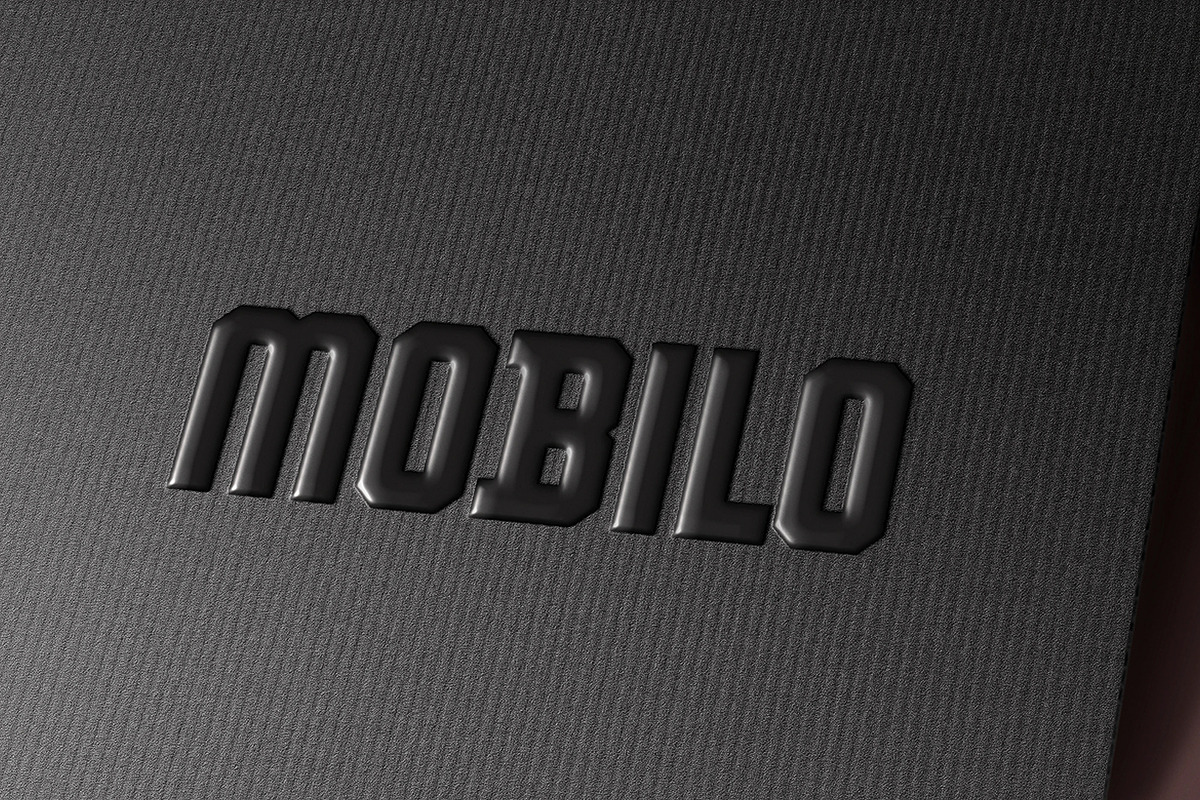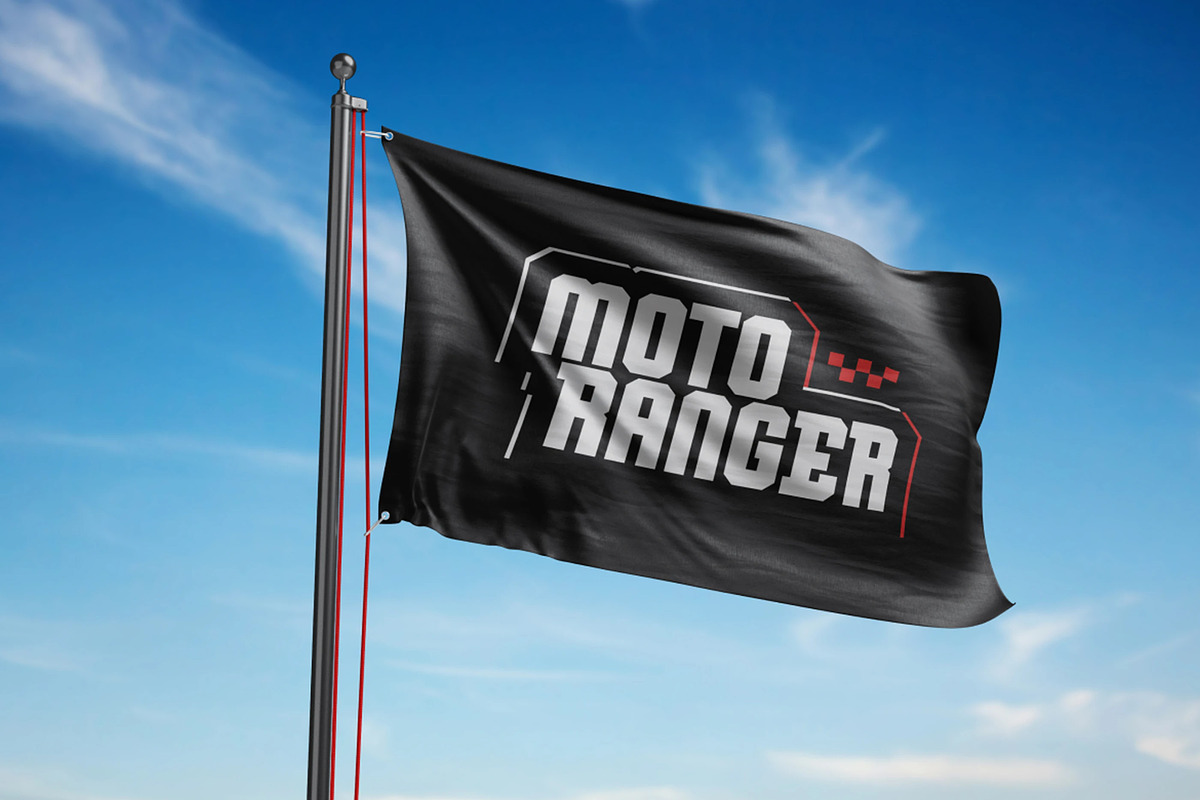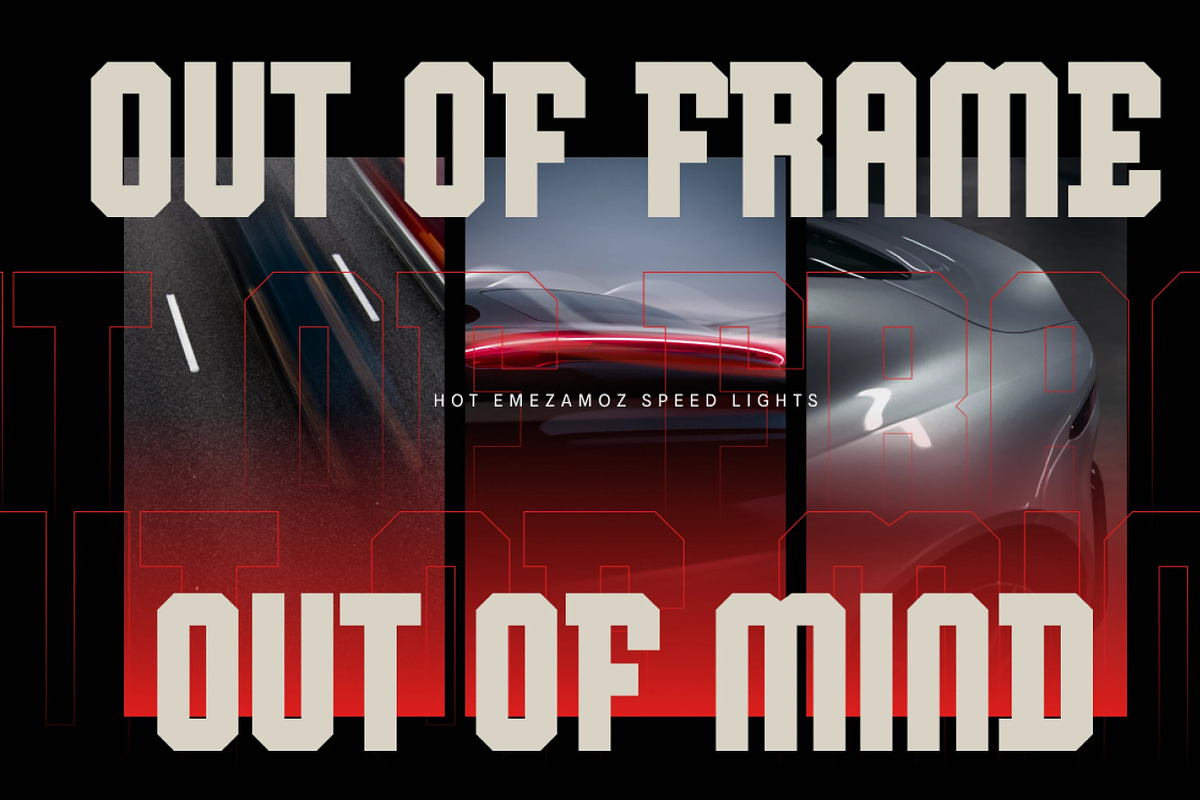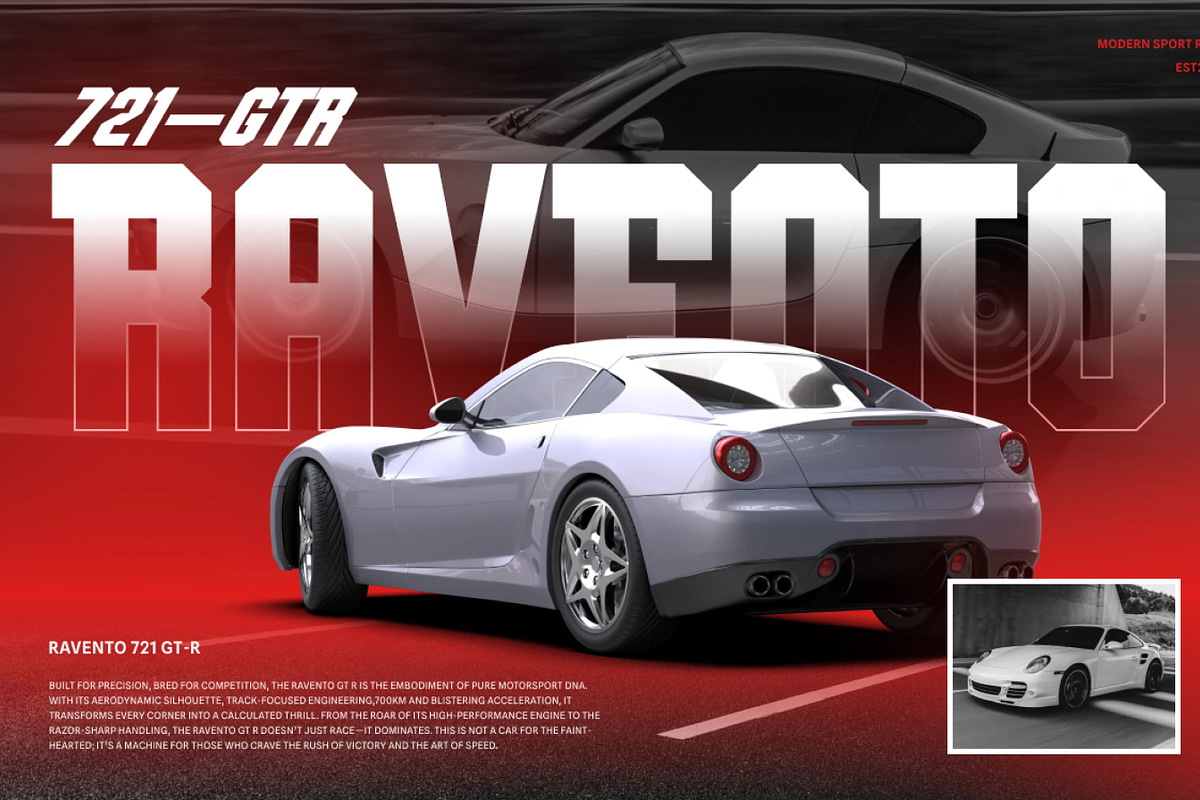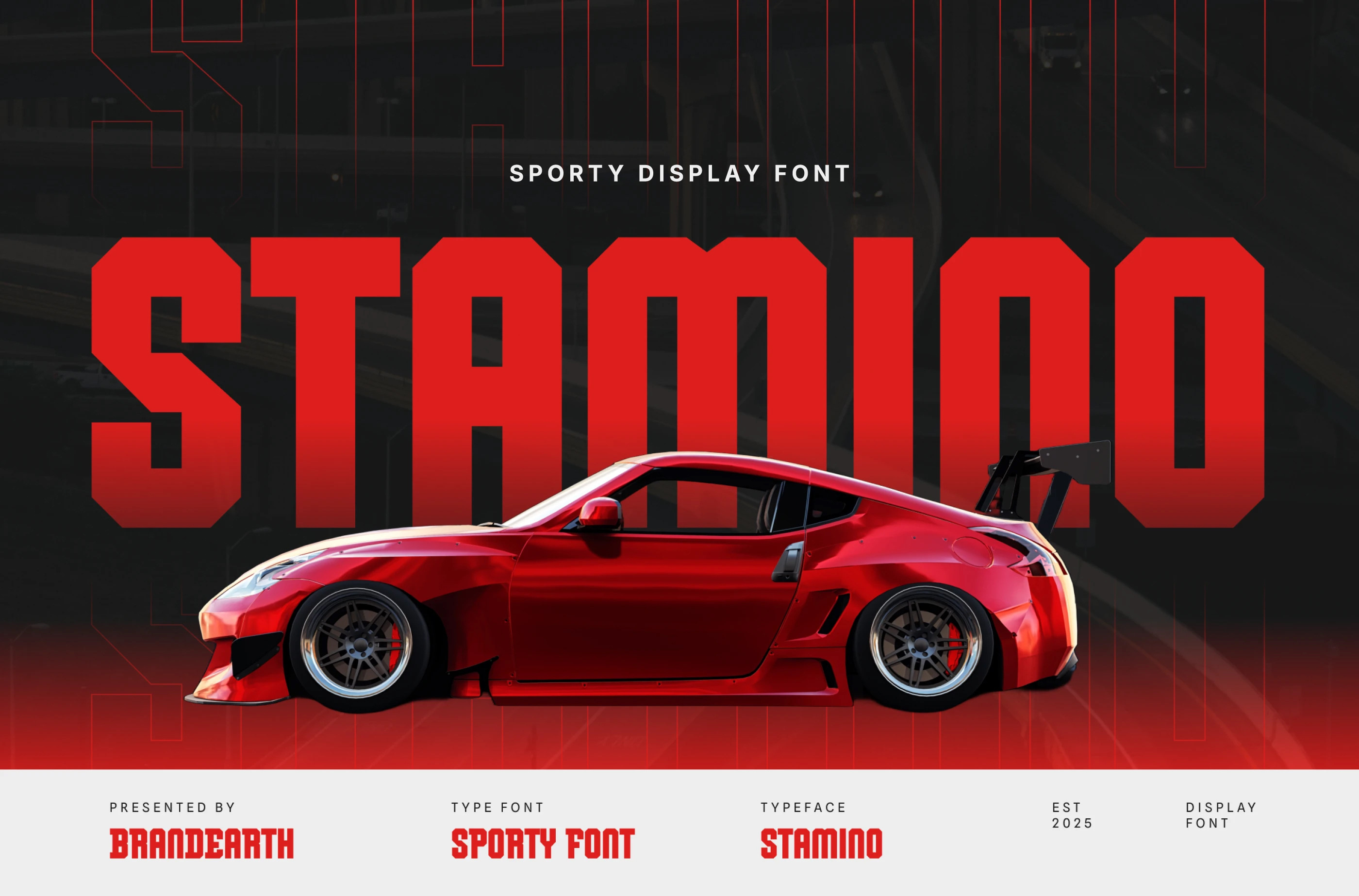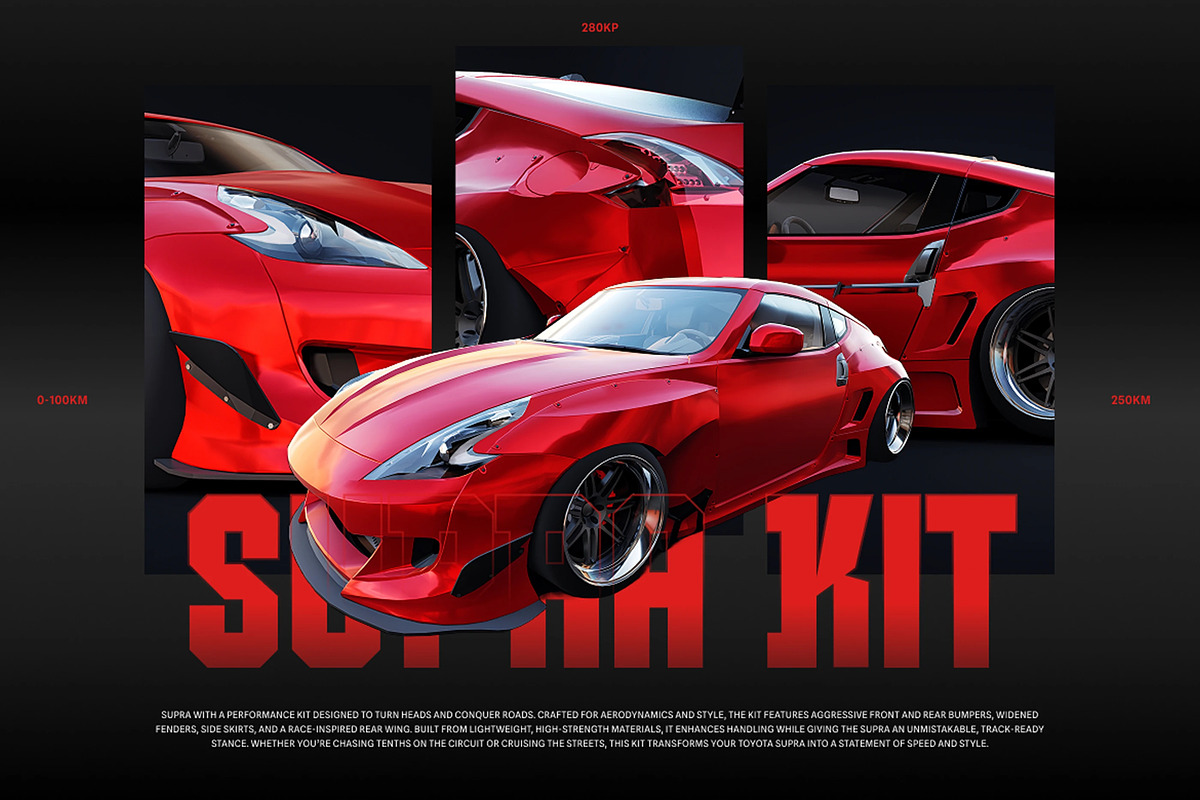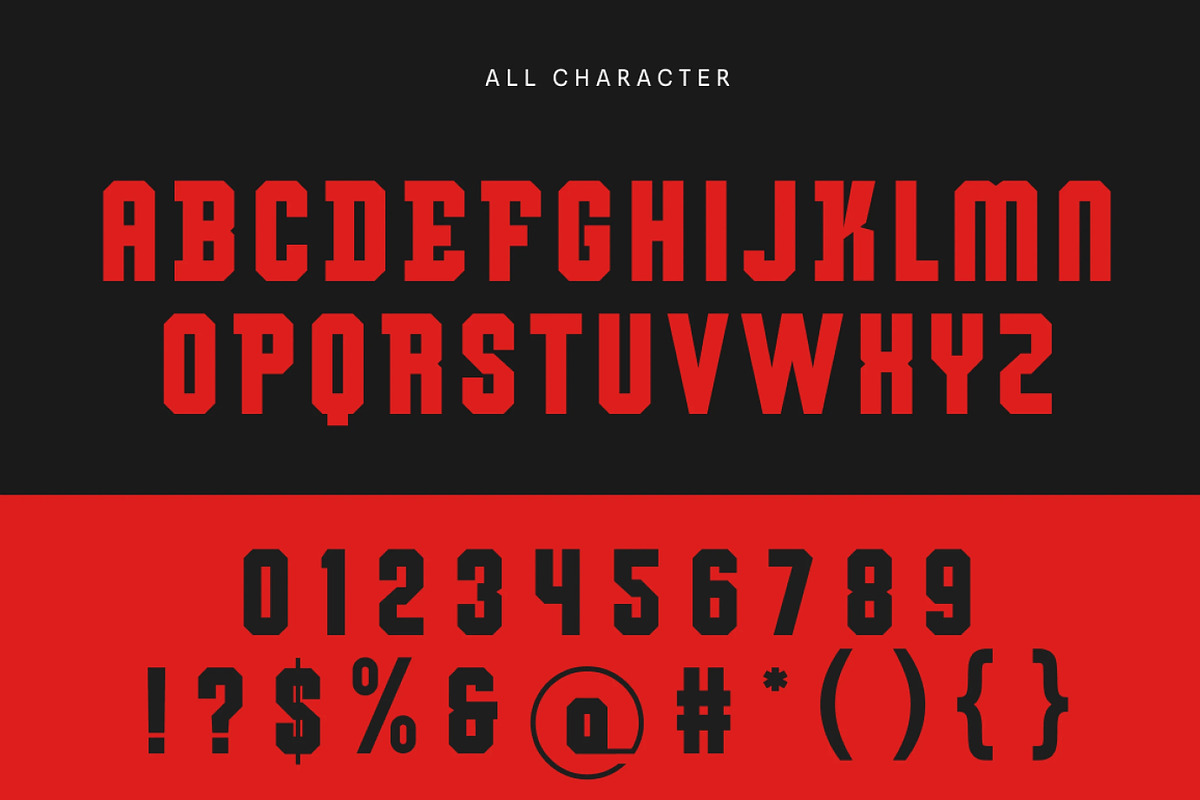
Stamino - Bold Sporty Display Font
Stamino is a bold sporty sans-serif display font designed with strong geometric cuts and a futuristic racing aesthetic. Its powerful all-caps style conveys speed, energy, and confidence, making it highly suitable for automotive branding, esports identity, technology visuals, editorial titles, and impactful sports campaigns. With sharp angular cuts and condensed letterforms, Stamino balances industrial precision with modern design flair, giving every project a high-performance visual statement.
The letterforms in Stamino are carefully crafted with bold geometric blocks, sharp angular cuts, and a condensed, high-impact rhythm that gives the typeface a fast and powerful appearance. It features an industrial precision that is perfect for automotive branding, racing posters, and esports graphics.
With its mix of speed and structure, Stamino bridges the gap between raw athletic energy and modern design flair. It provides a bold, high-performance identity while maintaining clarity, making it ideal for sports team branding, gym campaigns, and competition event graphics.
Numeral & Punctuations
Suitable For: automotive branding, racing posters, esports graphics, gaming typography, bold logo design, technology branding, industrial advertising, sports team identity, competition event graphics, merchandise design, varsity and college posters, professional editorial titles, fitness and gym branding, strong motivational campaigns, creative agency showcases, and modern digital cover design.